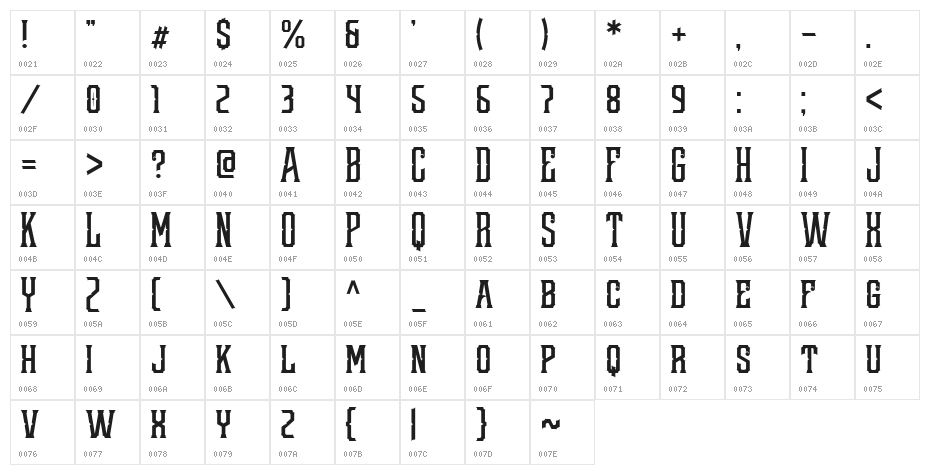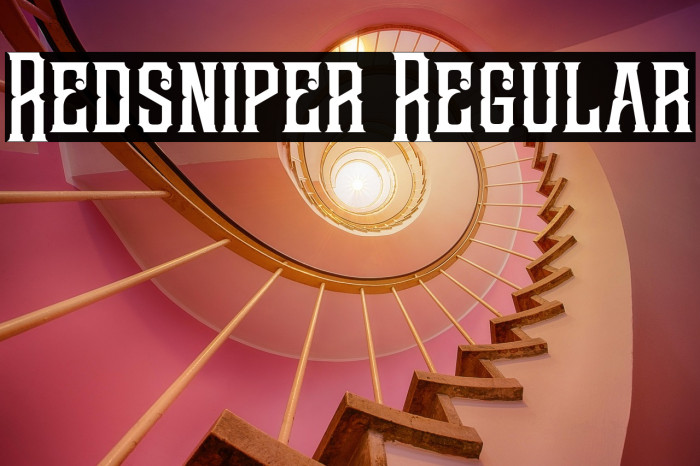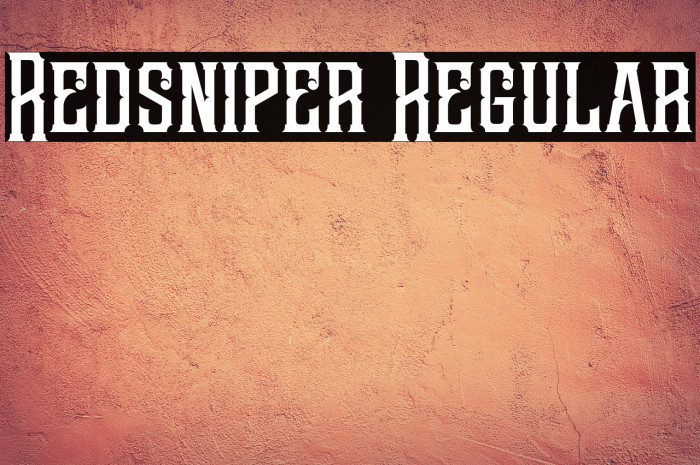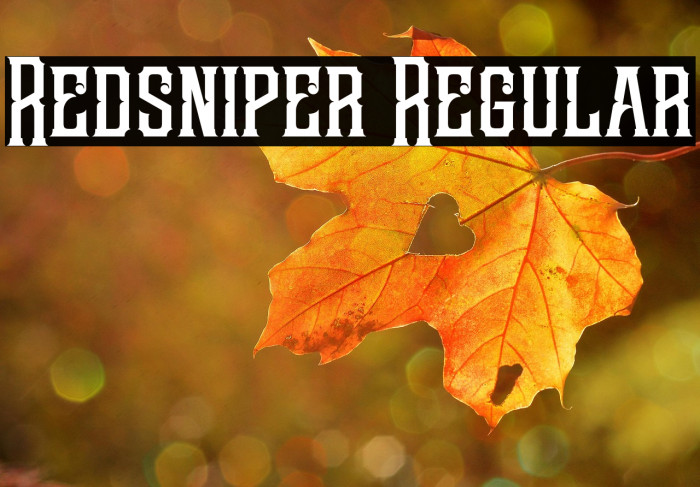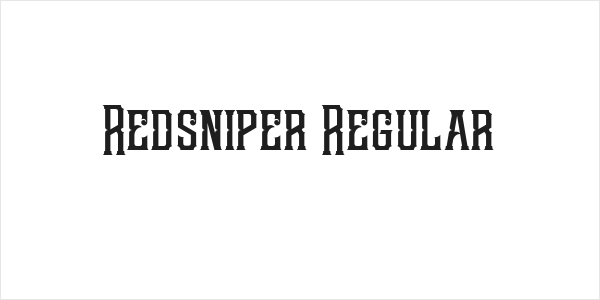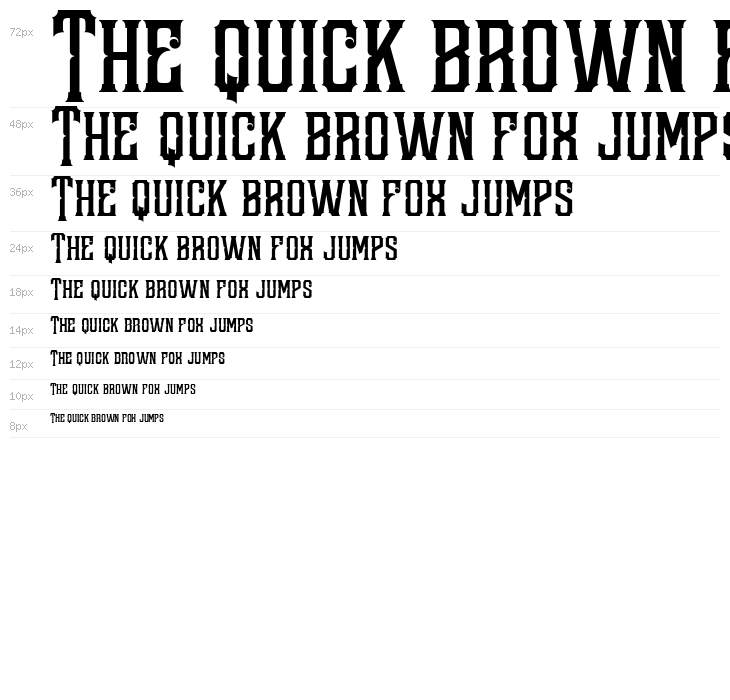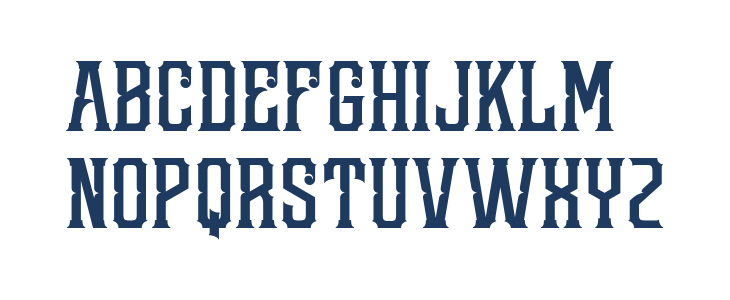
Redsniper Regular Font
Redsniper Regular Description
This font features a bold and striking design with sharp, angular edges and a strong presence. The characters are tall and narrow, giving them a condensed appearance. The uppercase letters are particularly prominent, with unique cut-out details that add a decorative touch. The numbers and special characters maintain the same bold style, ensuring consistency across all glyphs. The font's overall aesthetic is reminiscent of vintage or western styles, making it suitable for projects that require a distinctive and eye-catching typeface.
| Proposed Projects | Ideal for posters, logos, and branding that require a bold, vintage aesthetic. |